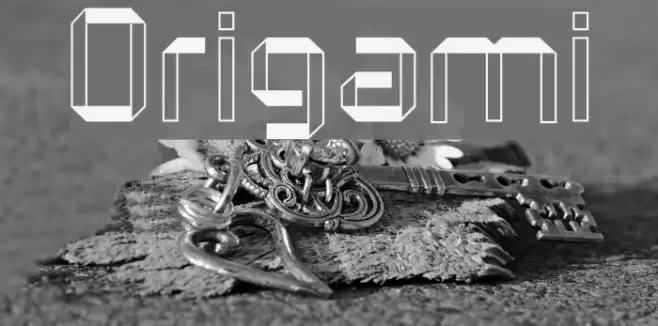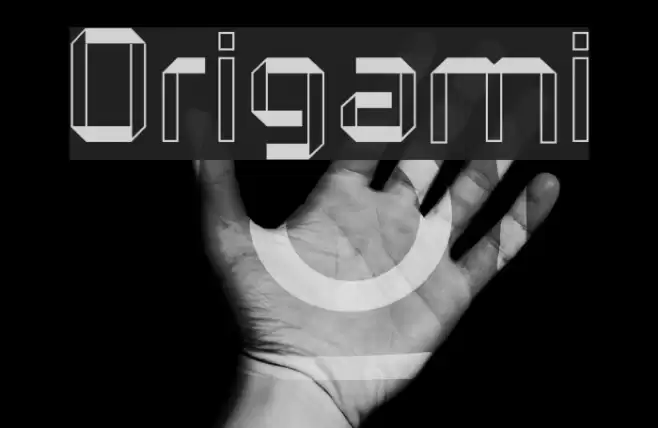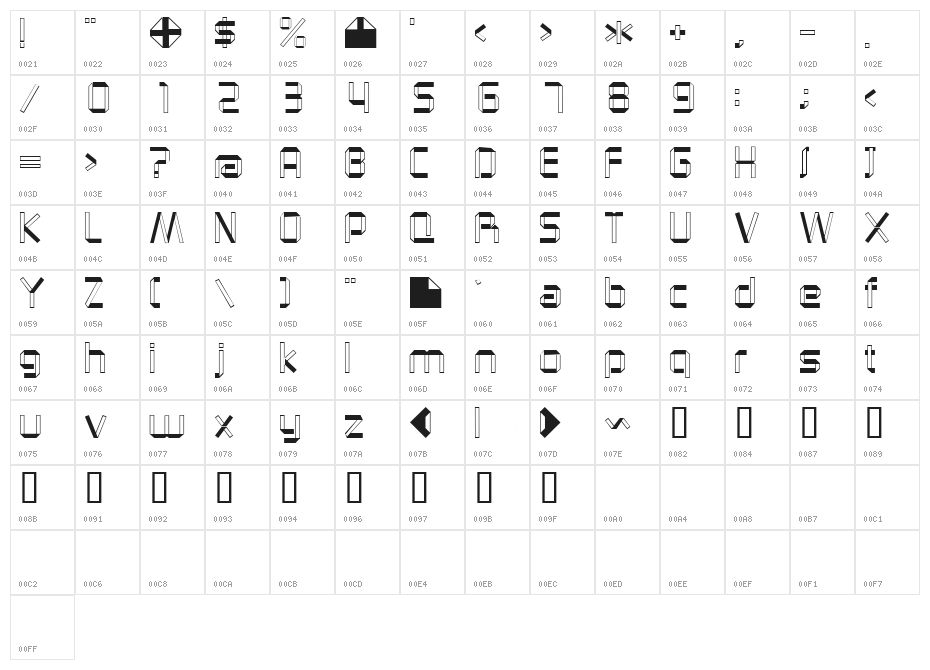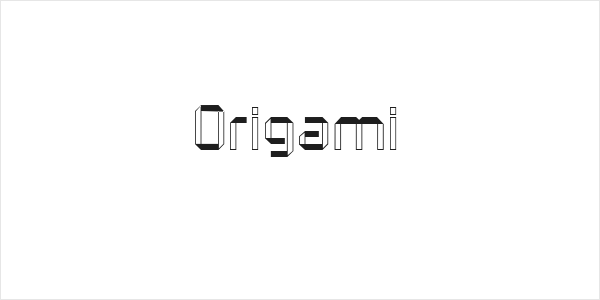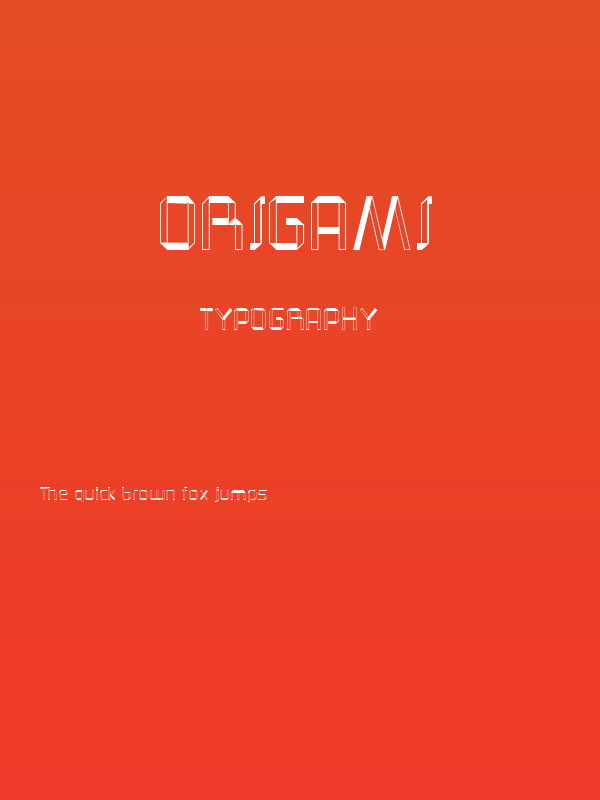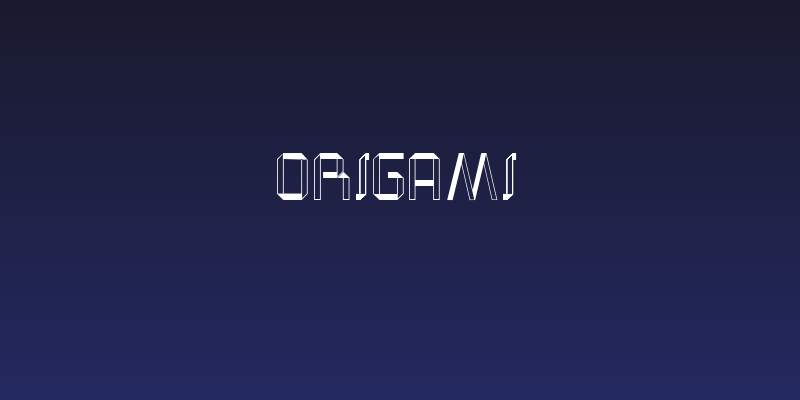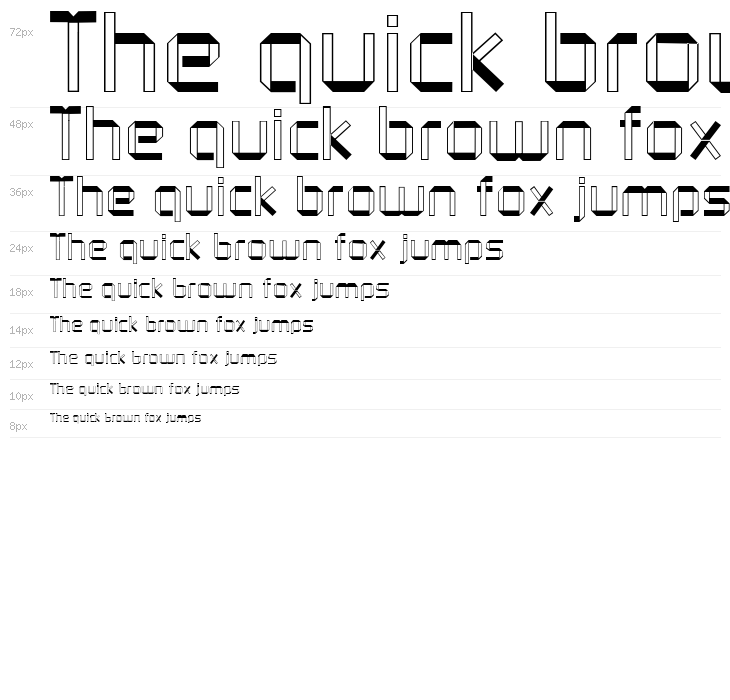
Origami Font
Origami Description
This font features a unique, geometric design that mimics the art of paper folding, creating a three-dimensional effect. The characters are constructed with bold, angular lines and sharp edges, giving them a modern and futuristic appearance. The uppercase and lowercase letters maintain a consistent style, with a mix of solid and outlined sections that enhance the origami-like aesthetic. The numerals and special characters follow the same design principles, ensuring a cohesive look across all glyphs. This font's distinct style makes it stand out, offering a creative and artistic flair.
A geometric, origami-inspired font with bold, angular lines and a modern aesthetic from Uncategorized fonts.